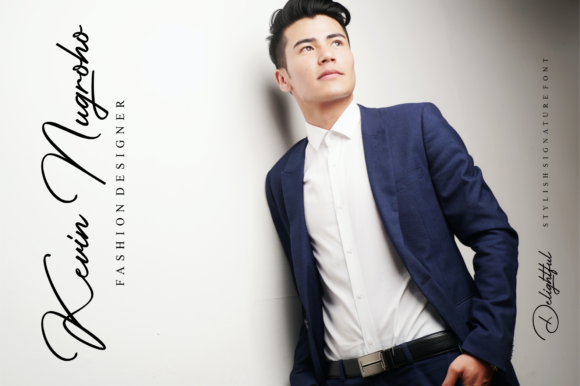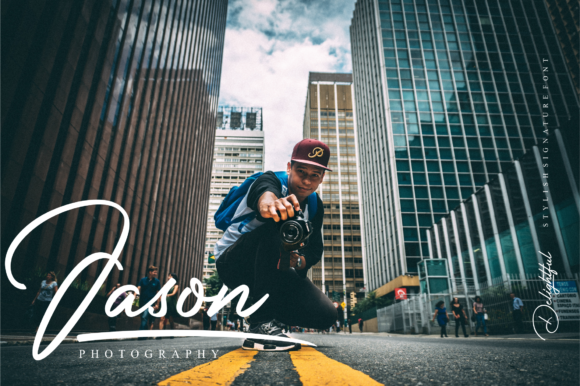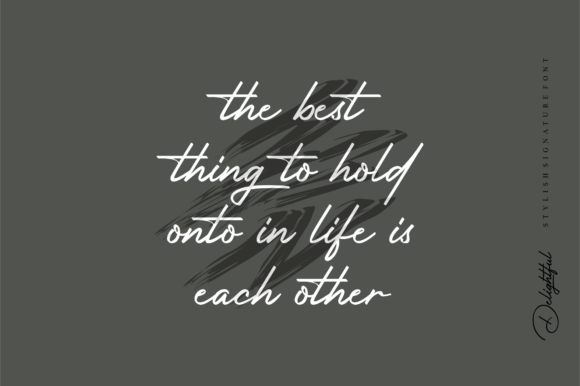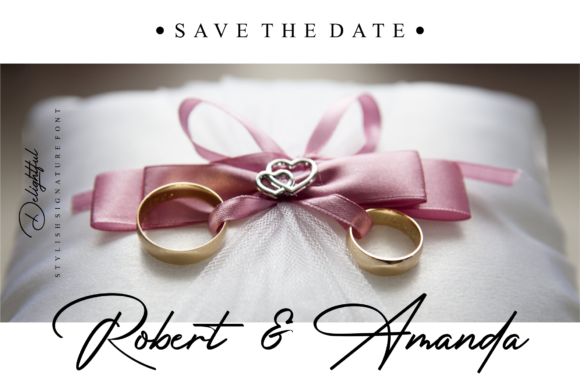
About Delightful Font
Delightful is a script font that embodies fashion, simplicity, and cleanliness. Its PUA encoding allows easy access to all glyphs and swashes, making it a versatile choice for a variety of design needs.
The charm of Delightful lies in its ability to add a handwritten feel to your projects. Its stylish script style can bring a sense of warmth and intimacy to your designs, making them more engaging and appealing to the audience.
Whether you’re working on a branding project, designing a logo, creating wedding designs, crafting social media posts, designing advertisements, or packaging a product, Delightful is an excellent choice. Its clean and simple style can add a touch of elegance to your designs, making them stand out.
In conclusion, Delightful is more than just a font. It’s a design tool that can add a touch of elegance and sophistication to your designs. Its PUA encoding, stylish script style, and versatility make it a valuable asset for any designer. So, why wait? Incorporate Delightful into your design today and witness the transformation. Experience the difference that a truly elegant and simple font can make. Experience Delightful.
With Delightful, you’re not just choosing a font. You’re choosing a font that will make your design stand out, a font that will add character to your text, and a font that will leave a lasting impression on your audience. Choose Delightful, and let your design speak for itself.
So, if you’re looking for a font that’s fashionable, simple, clean, and has aesthetic value, look no further than Delightful. It’s the perfect font for any design project, and it’s sure to make your design stand out. Try Delightful today, and see the difference it can make in your design.